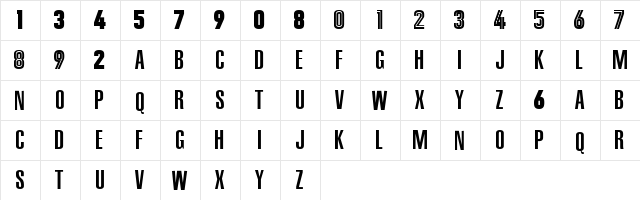
NBA Grizzlies Regular
Design Context for NBA Grizzlies Typeface
NBA Grizzlies offers clean, dependable letterforms without strong stylistic allegiance, making it a practical choice for designers who need flexibility.